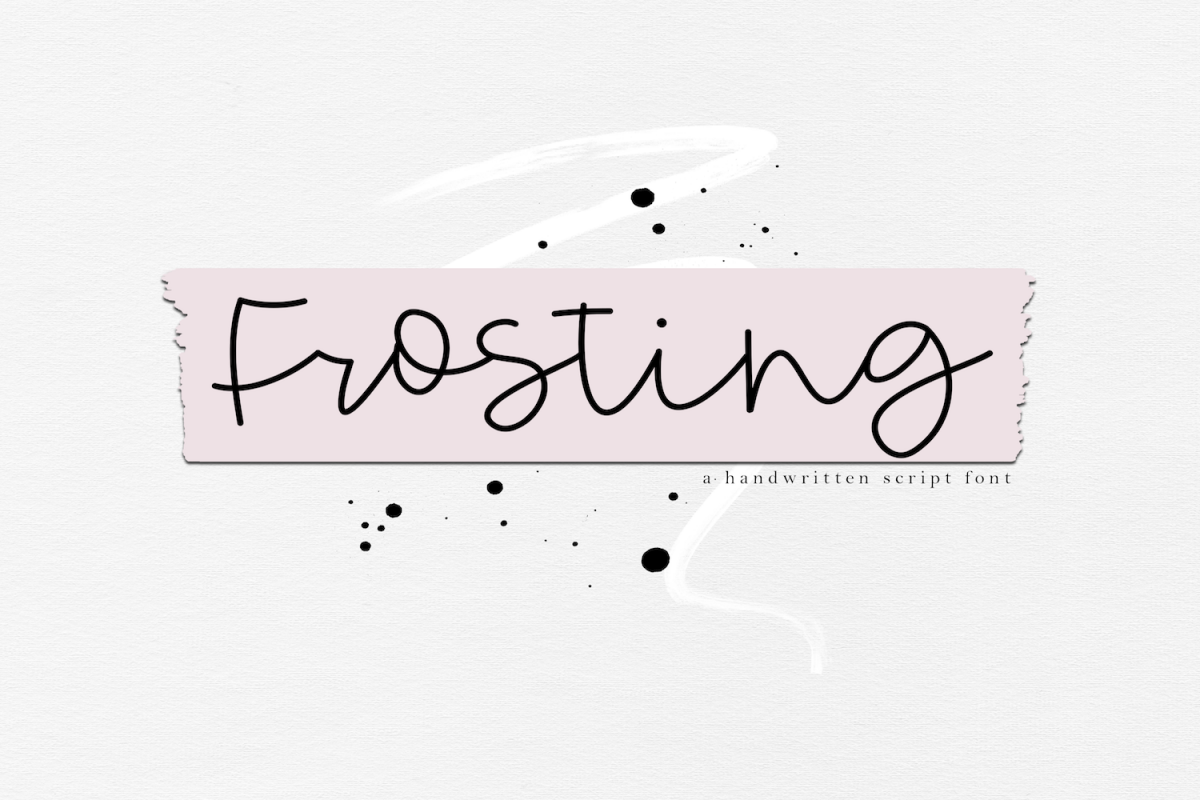
Frosting - Handwritten Script Font
Frosting
Frosting is a pretty handwritten script font.
This font is perfect for quotes, headings, designs, logos, invitations and more!
This font *does* include accent characters.